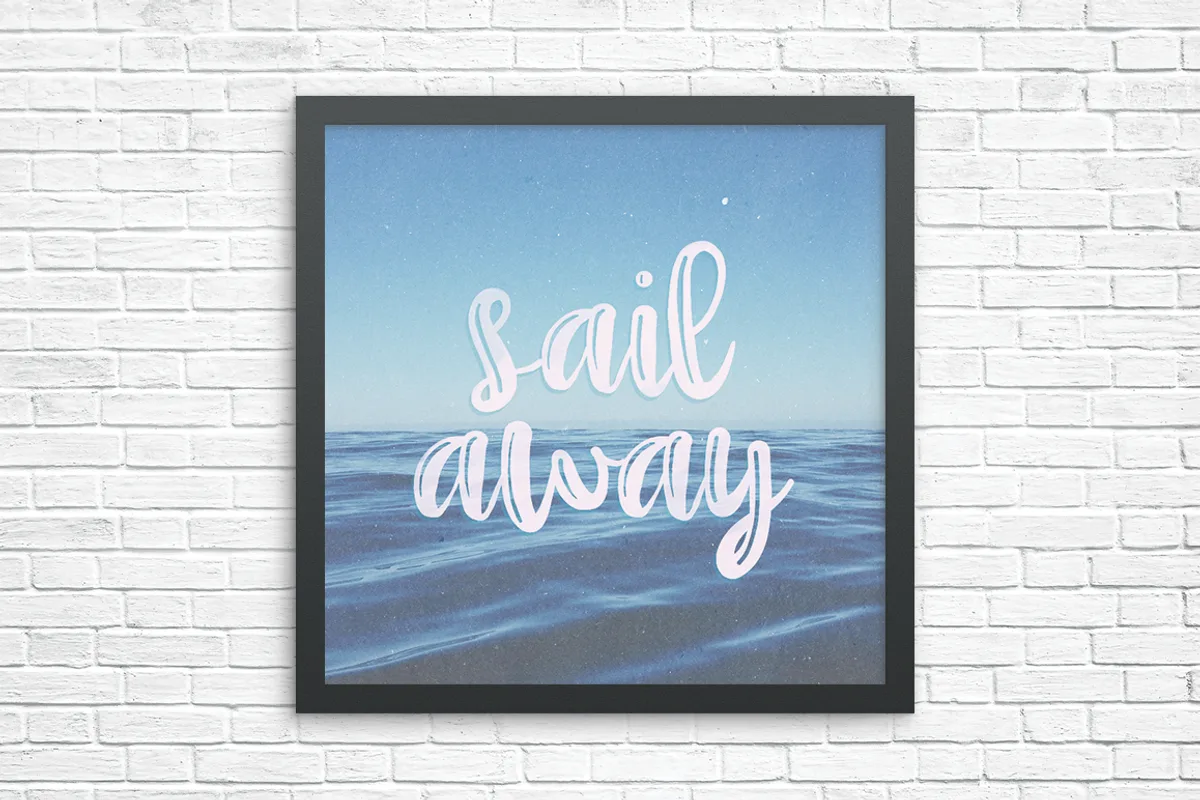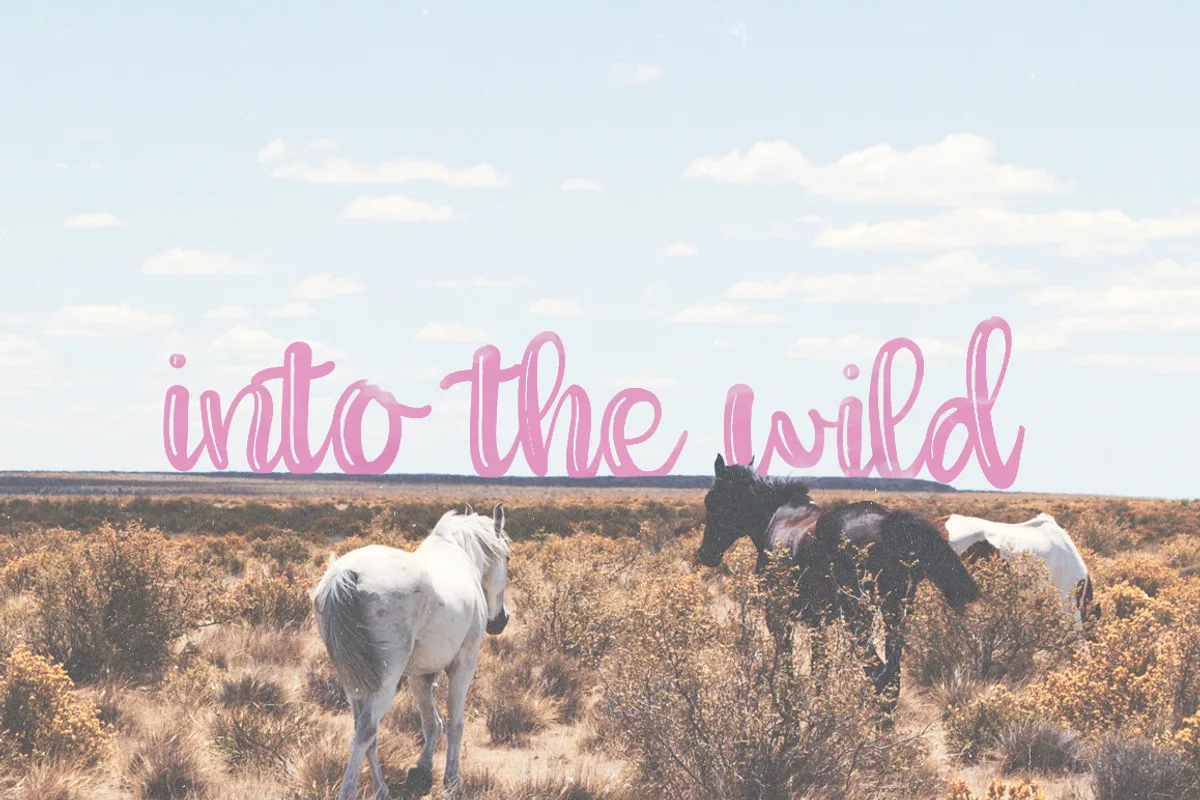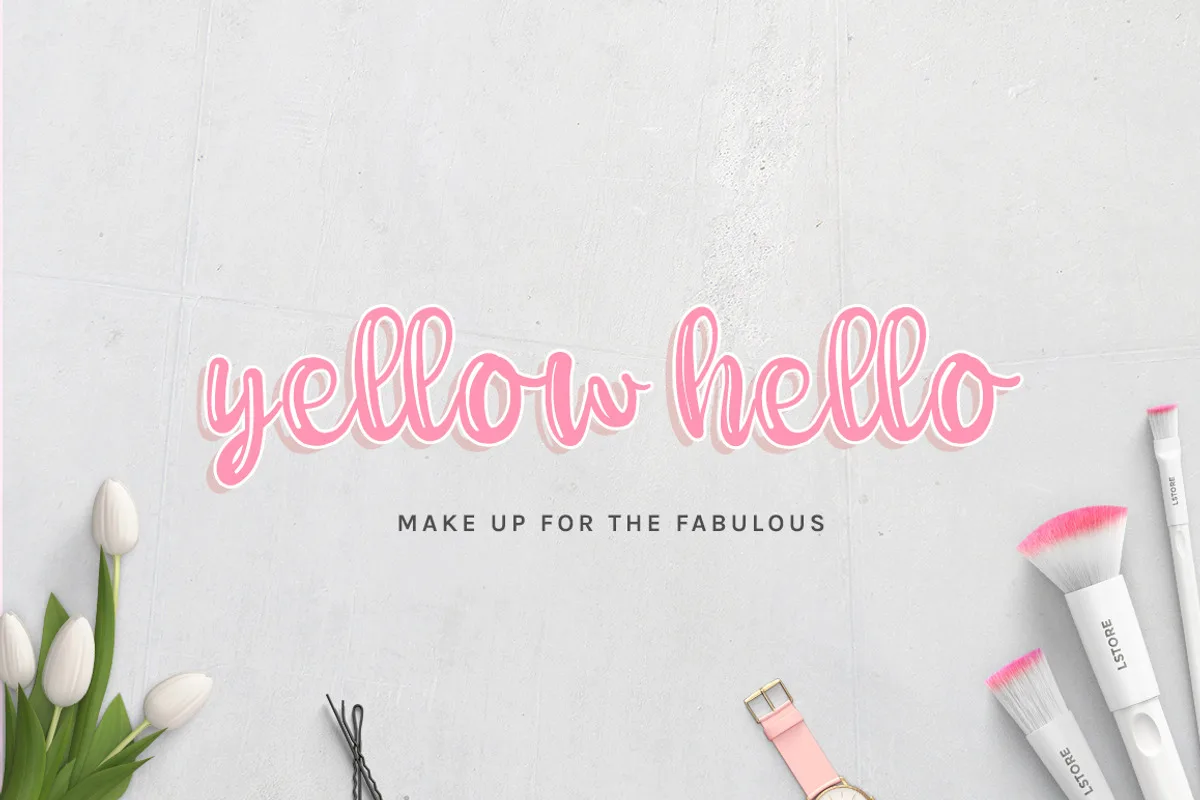
The Willow is a brand new thick curly script font, including a transparent shadow within each character. As well as a range of alternate characters and ligatures, that are 100% accessible to all. This is a commercial font: personal and commercial use is covered by the licence tier you purchase from Creative Market.